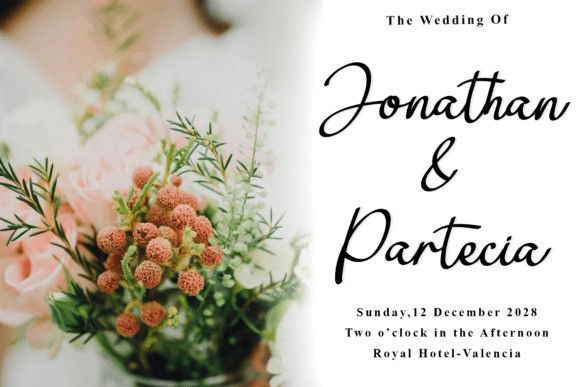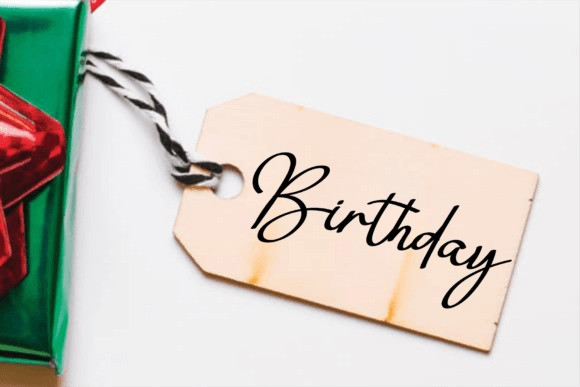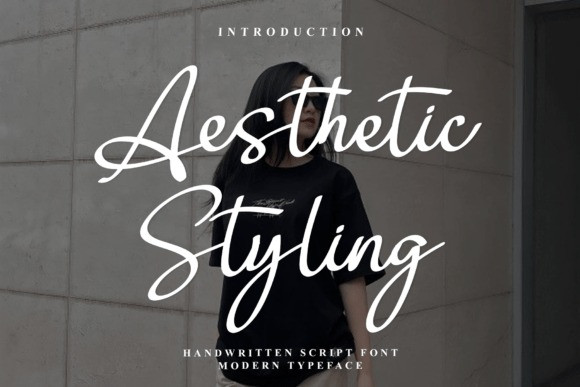
Aesthetic Styling Script Font
Aesthetic Styling Script Font is a stunningly elegant and highly refined modern handwritten script font that embodies professional artistry, delivering a luxurious and personalized touch ideal for high-end branding.
This exquisite typeface is characterized by its dramatic contrast between thick downstrokes and delicate hairlines, along with beautifully integrated ligatures and swashes that enhance its sophistication. It conveys the unique and professional quality of a skilled calligrapher.